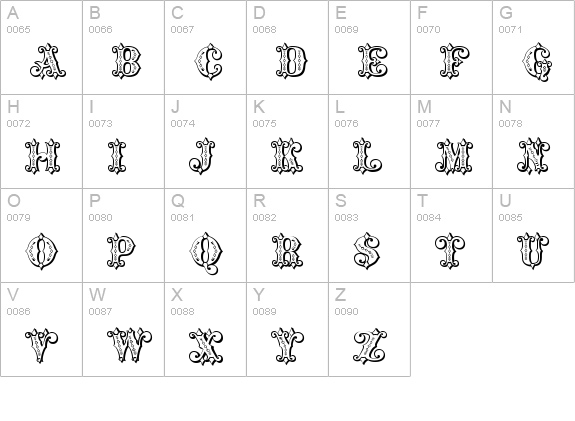
Maverick's Lucky Diamonds Font Details
Maverick's Lucky Diamonds font is a unique and eye-catching typeface designed to add a touch of elegance and sophistication to your projects. With its striking diamond-shaped letters and sleek design, this font is perfect for creating stunning logos, branding materials, invitations, and more. Whether you're looking to make a bold statement or add a subtle touch of luxury, Maverick's Lucky Diamonds font is sure to impress. The best part? Maverick's Lucky Diamonds font is completely free to download at FontsMarket.com. So go ahead and elevate your designs with this exquisite typeface without breaking the bank. Download Maverick's Lucky Diamonds font today and let your creativity shine!